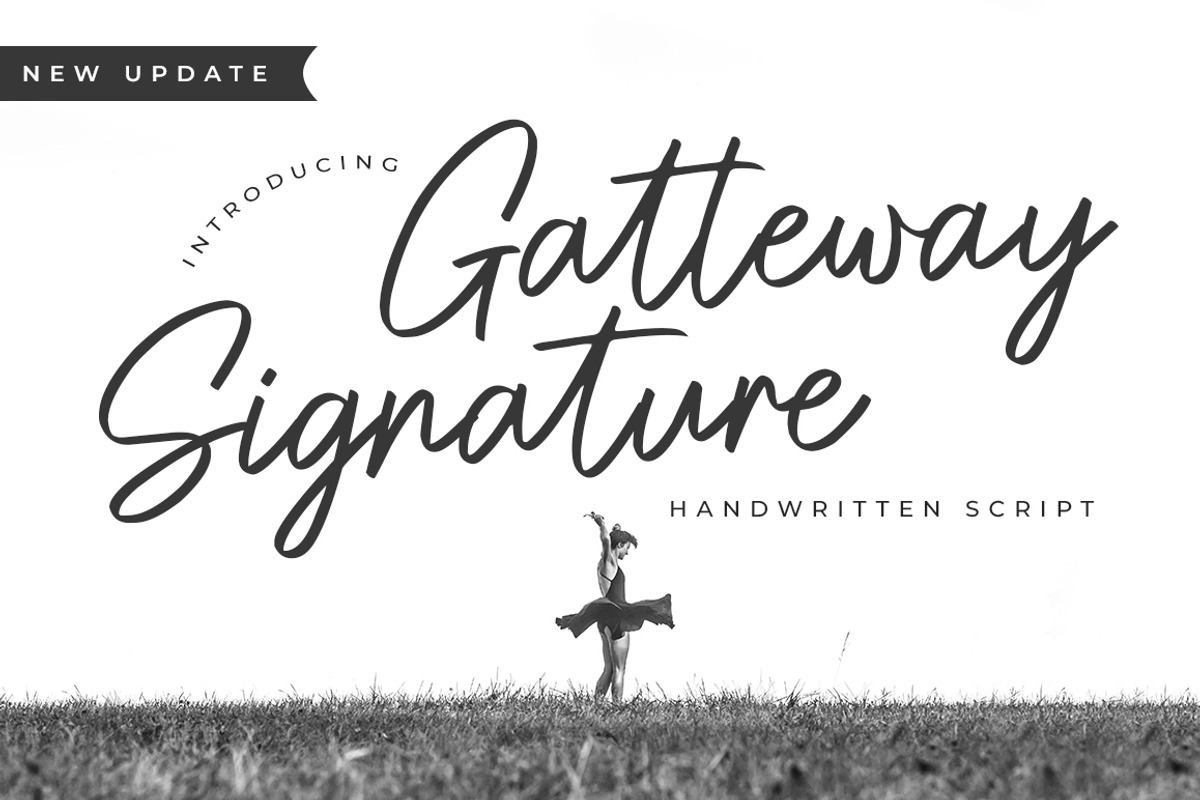
Gatteway Signature - Bold Script Free Download
Gatteway Signature Font - Bold Script Free Download
Gatteway Signature Font - Bold Script Free Download is an elegant and stylish script typeface that combines a bold, contemporary look with the fluidity of handwritten lettering. Its strong, flowing curves and thick strokes give it a distinctive and sophisticated appearance, making it perfect for logos, branding, wedding invitations, social media graphics, and more.
The Gatteway Signature font offers a personal, signature-style feel while maintaining readability, making it ideal for creative projects that require an elegant, professional touch. Whether you're designing for luxury brands, creative businesses, or special events, this font adds personality and flair to your designs.
Make a bold, stylish statement with the elegant beauty of Gatteway Signature!